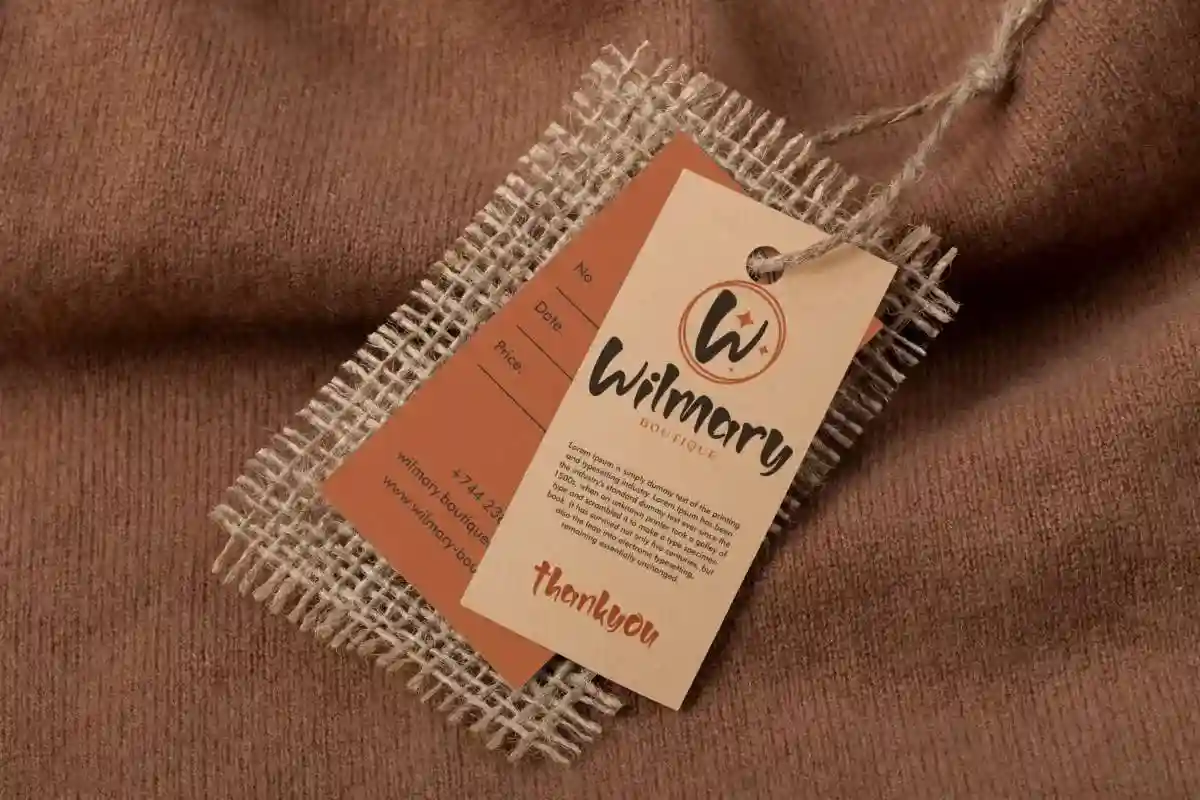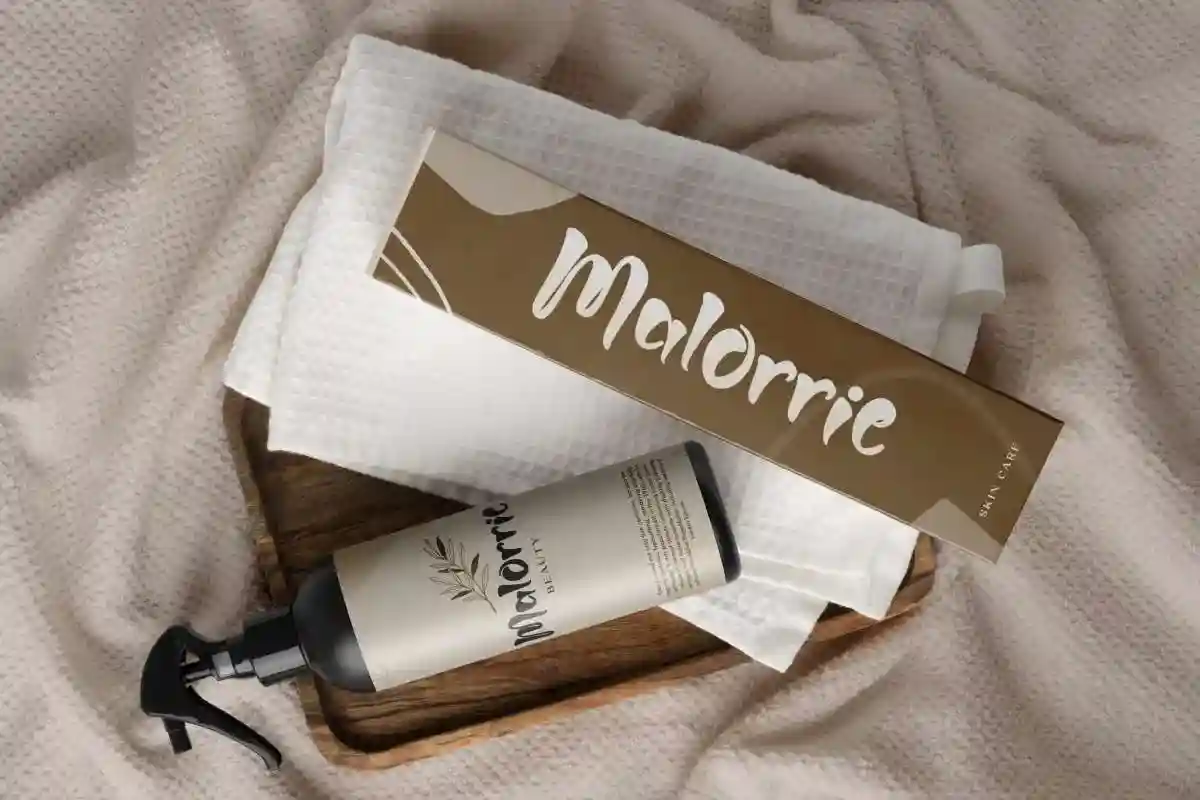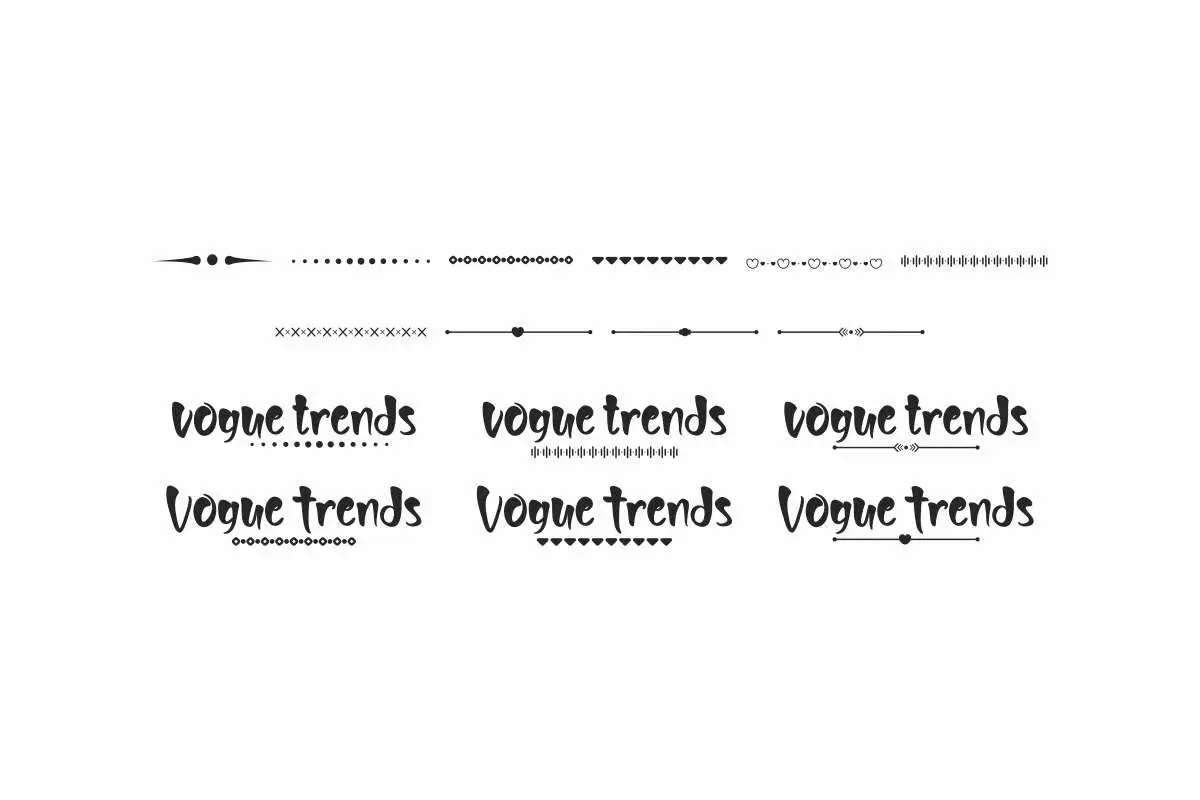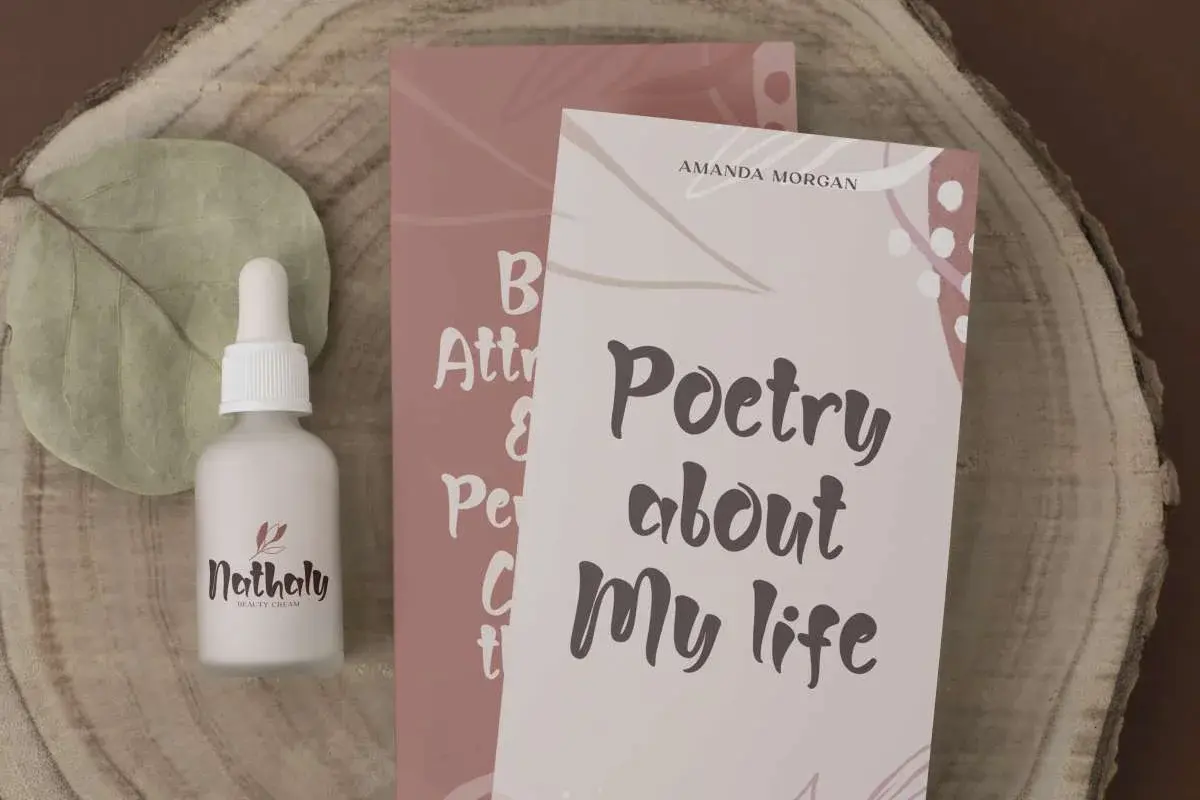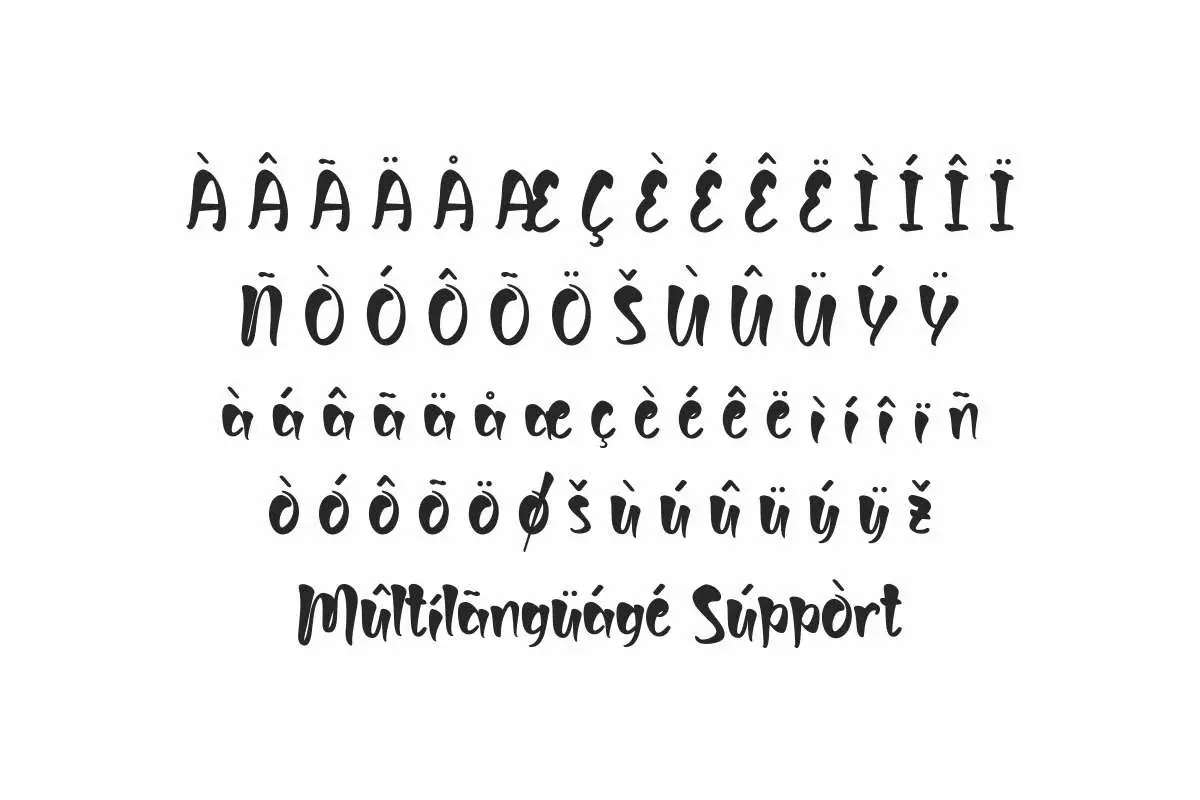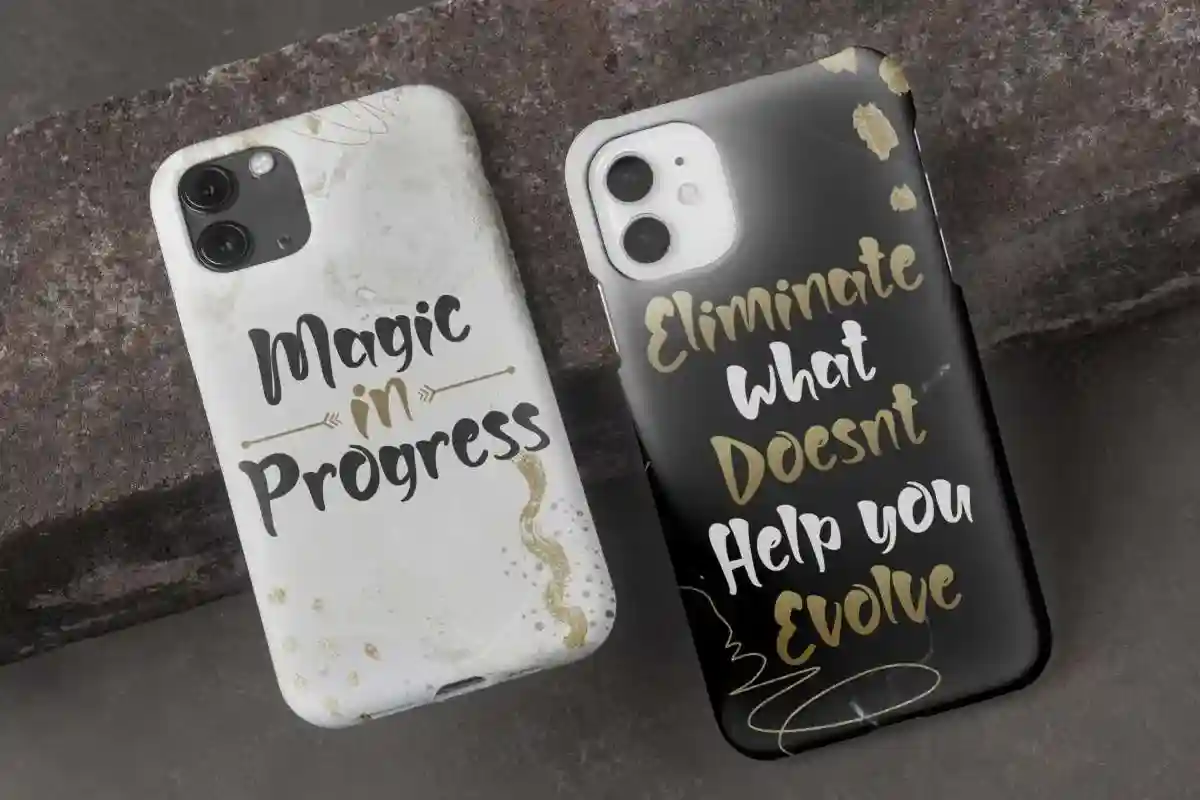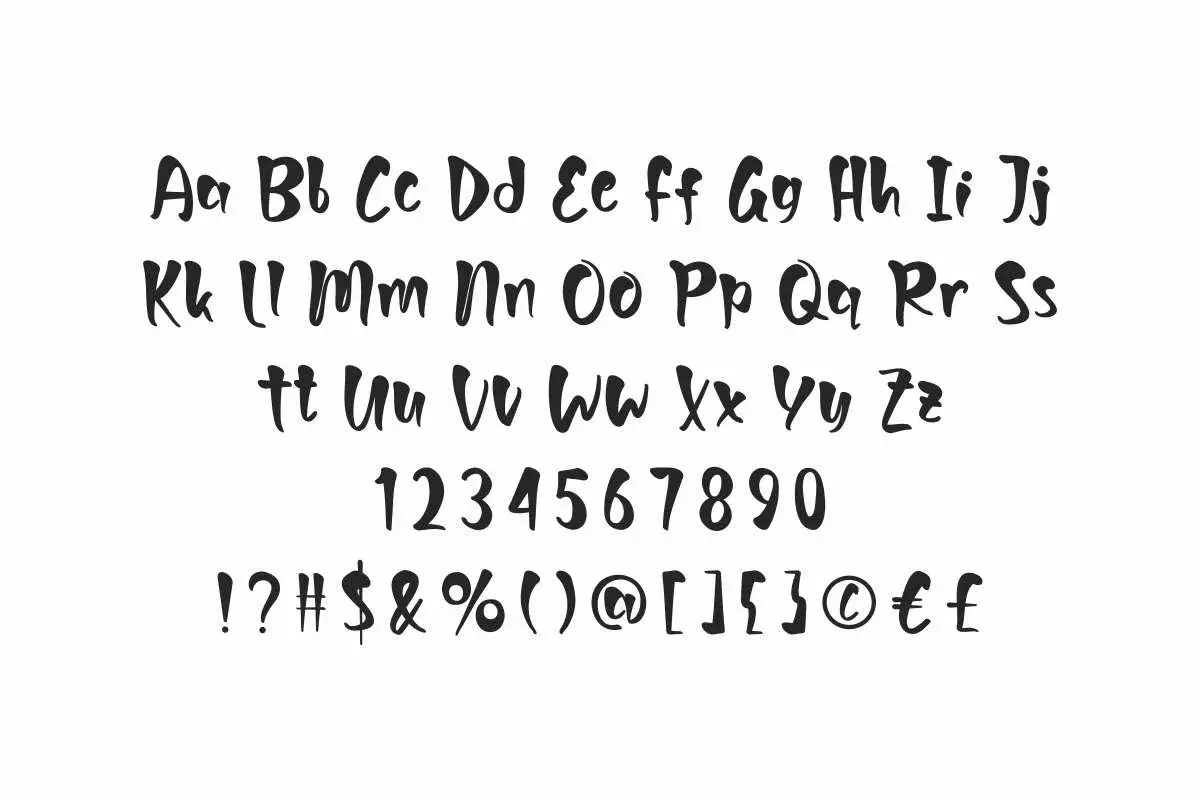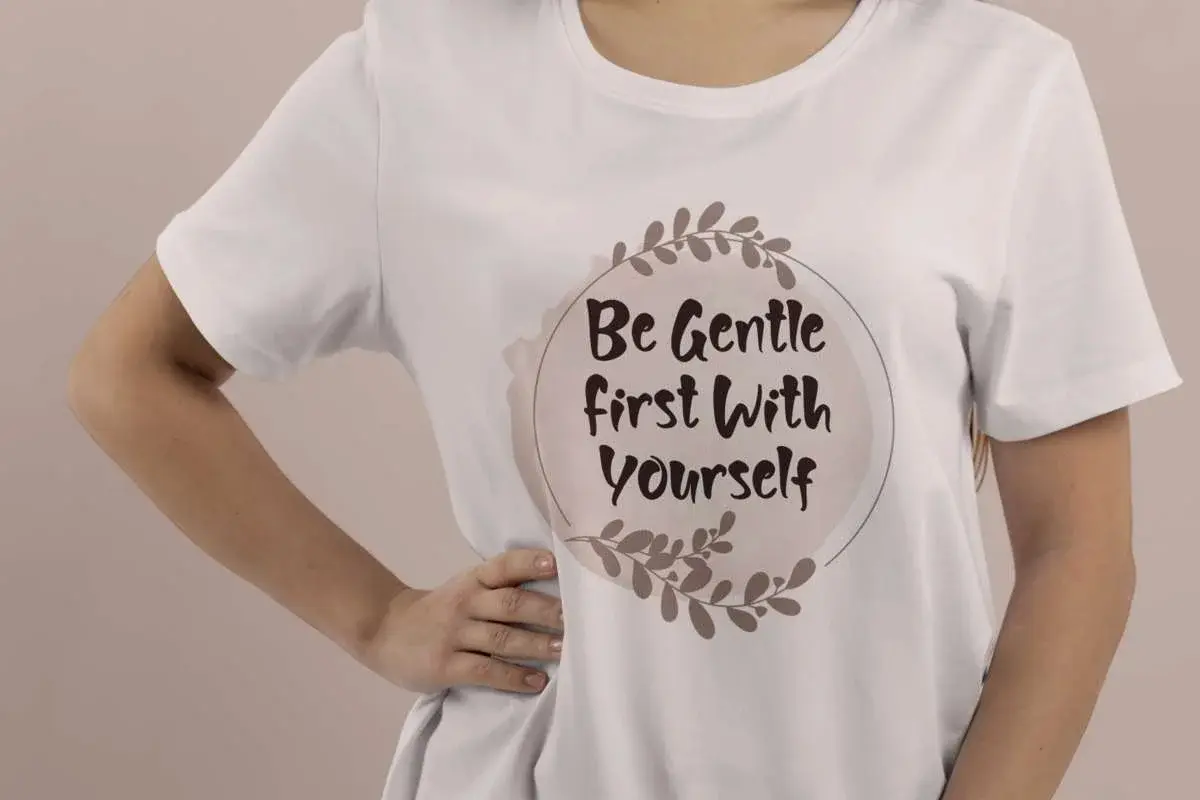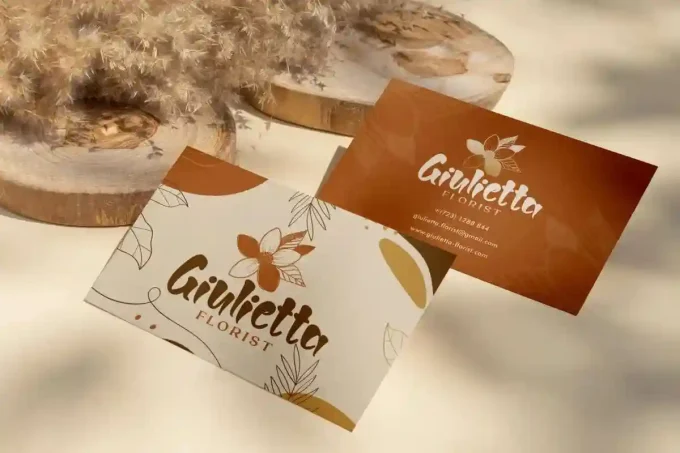
Vogue Trends Font is a bold and fun cartoon font from NihStudio that’s stylish and suitable for boutique, children products, school, kindergarten etc
Vogue Trends Font is a playful handwriting with cartoon style, created by NihStudio. This font use a thick thin irregular brush inspired by children’s fashion which will be suitable for many industries, such as bakery, clothing, cosmetic, florist, gadget accessories, kids stuff, salon & spa, and more!
Inspired from several kids related products, Vogue Trends Font will be great for logo, business card, label, product packaging, stationery, t-shirt design, and anything that requires a stylish appeal. Carefully crafted to provide a flawless look that adds an aesthetic to every design created, it’s easy to read and the swoosh character that makes it stand out.
Vogue Trends Font comes with a full set of Uppercase and Lowercase Basic Characters, Number, a large range of Punctuation and Symbol, Swoosh, also supports multilingual characters. Ready to use both on Windows machine or Mac with simple installations. It’s tested to work well in the Adobe Apps (Illustrator, Adobe InDesign, Adobe Photoshop) CorelDraw, and others. PUA Encode Characters means you can access all the glyphs and swashes with ease – Fully accessible without additional design software.